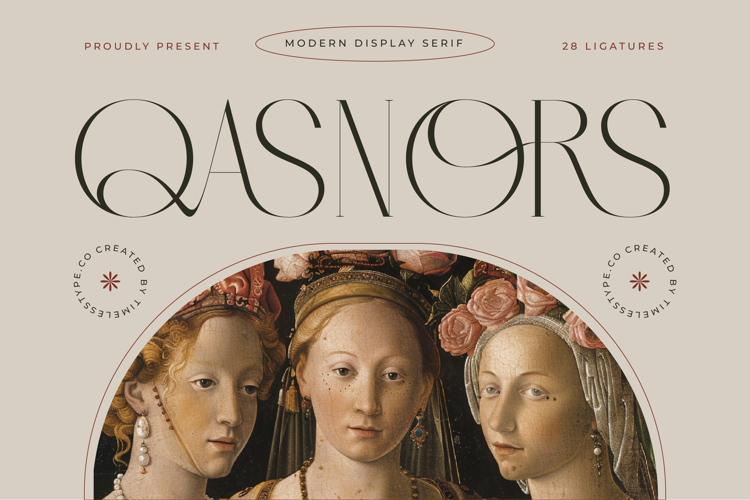
Qasnors - Modern Display Serif
The Qasnors Typeface is a modern display serif font with a thin, elegant, and refined design. Featuring 28 ligatures, this typeface delivers sophisticated typography with slender lines, smooth curves, and ornamental details that add an artistic touch. Its tall and delicate proportions make Qasnors an excellent choice for design projects that aim to emphasize luxury, elegance, and classic-modern aesthetics.
This font is highly effective in editorial design, particularly for fashion magazines, artistic layouts, and art book covers. The unique ligatures bring dynamic variation, giving every typographic composition a distinctive and stylish presence.
In branding and packaging, Qasnors is ideal for luxury products such as perfumes, jewelry, premium cosmetics, wines, and high-end fashion labels. Its refined aesthetic provides a prestigious and memorable visual identity.
For entertainment and promotional design, this typeface works beautifully on movie posters, theater promotions, album covers, and event branding. Its elegant character enhances visual storytelling with a dramatic and classy tone.
In the realm of digital design, Qasnors shines across social media content, website branding, digital advertising, and motion graphics. With multilingual support, it remains flexible and relevant for global projects requiring consistency in high-end typography.
In short, Qasnors Typeface is a modern display serif font designed to bring elegance, luxury, and timeless aesthetics. Perfect for editorial, branding, packaging, entertainment, advertising, and digital campaigns, this font transforms typography into a graceful, artistic, and unforgettable visual element.